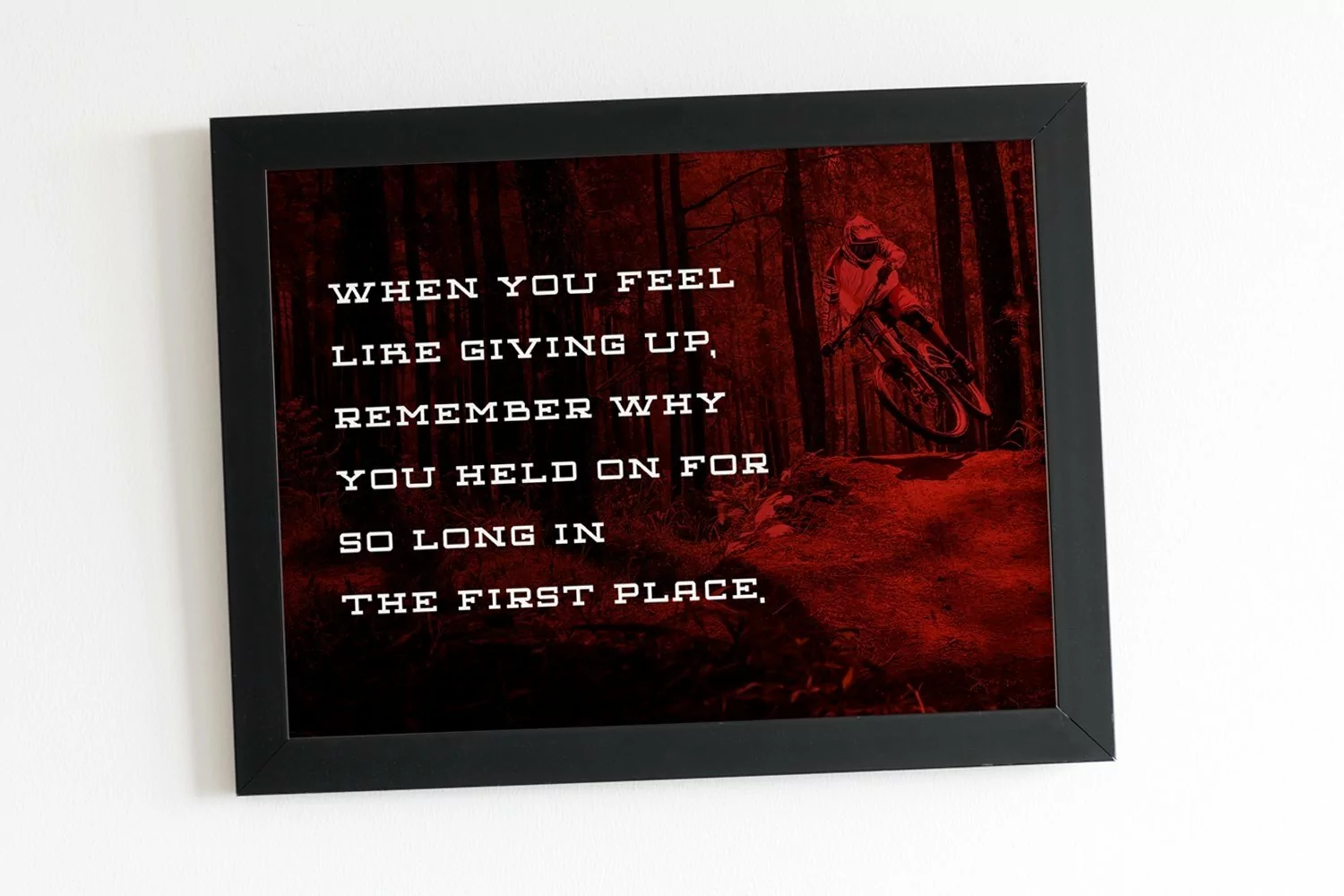
Web Font Lumenos
Lumenos is a display typeface. Perfect for display, quotes, sport needs, business card, logo, logo type, badges, emblem, header, tittle, and many more.